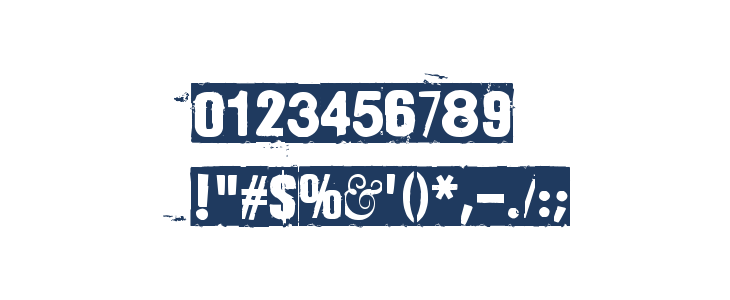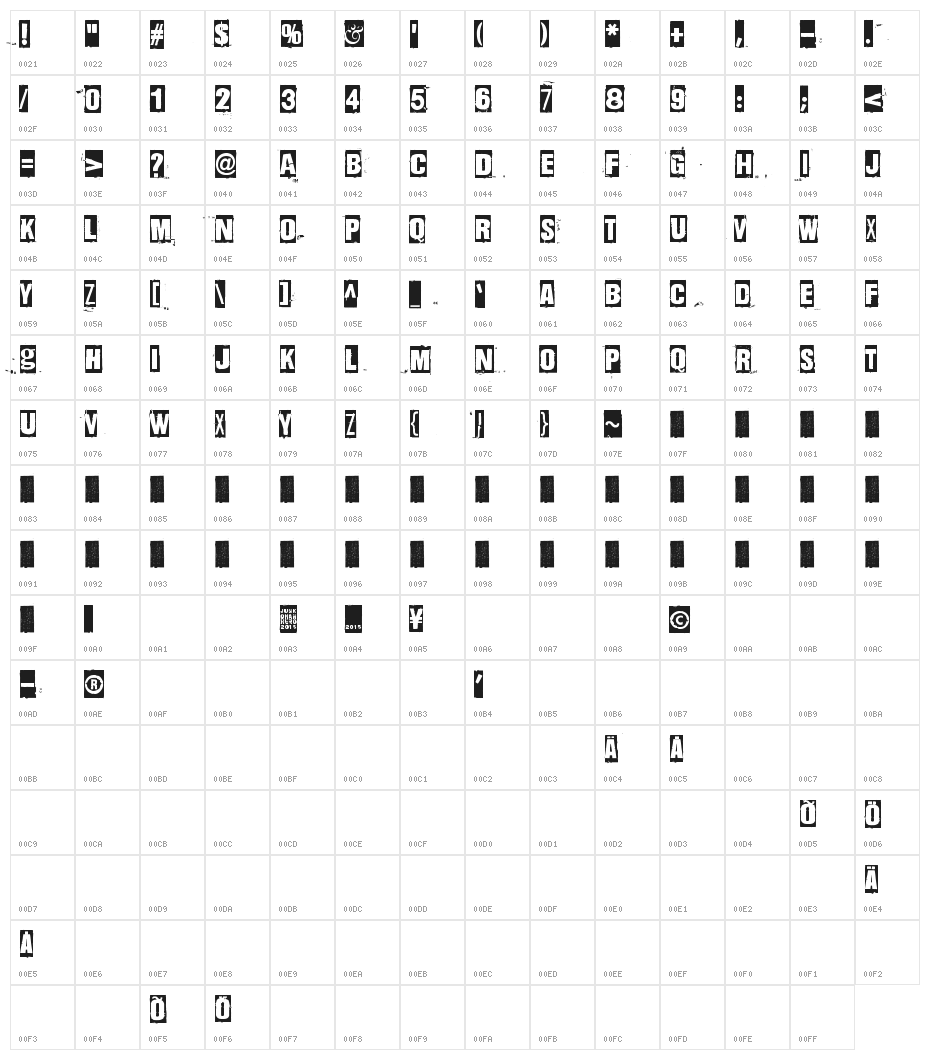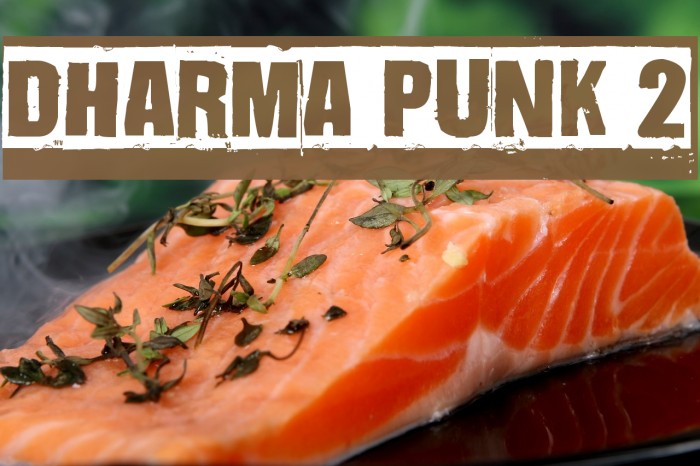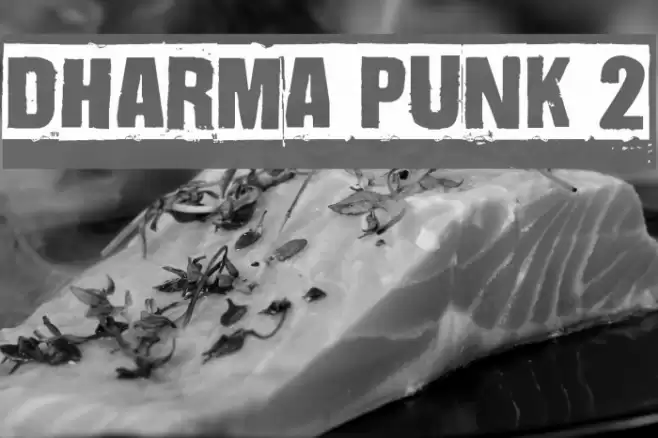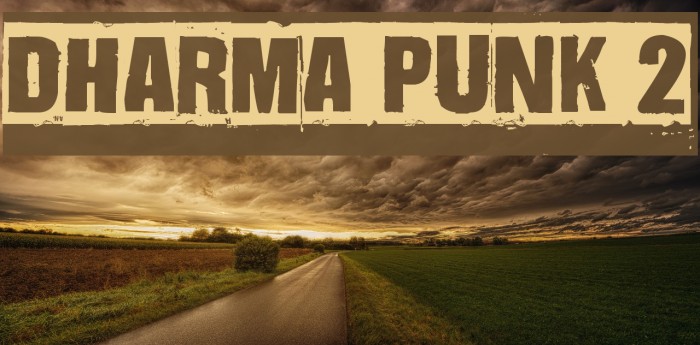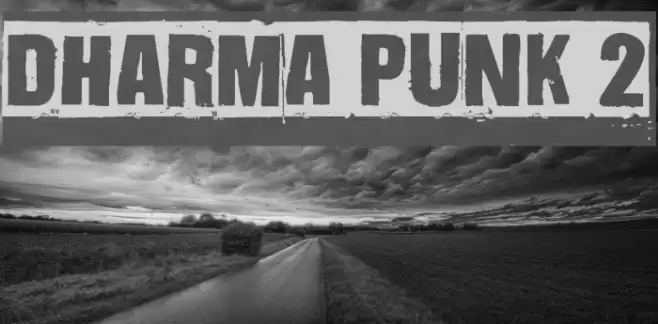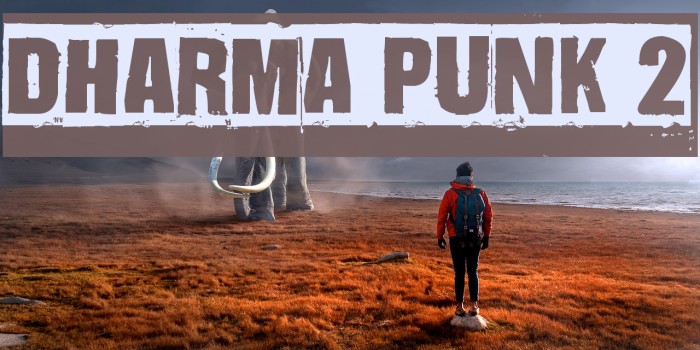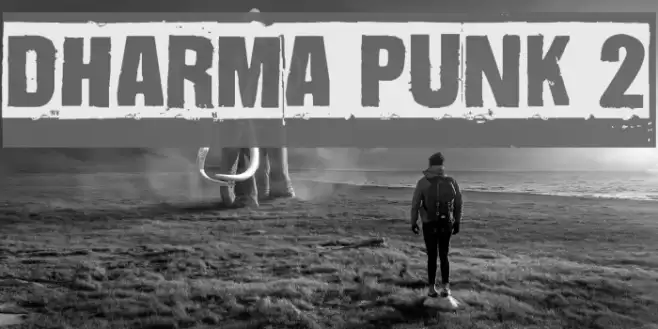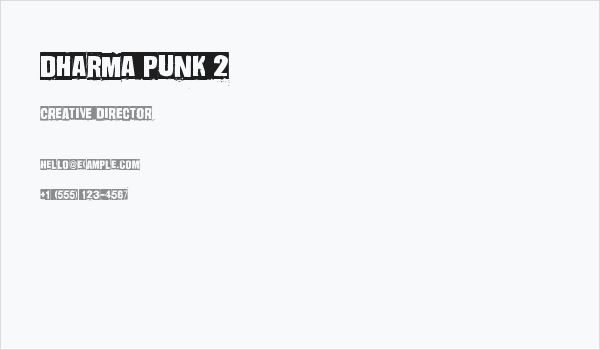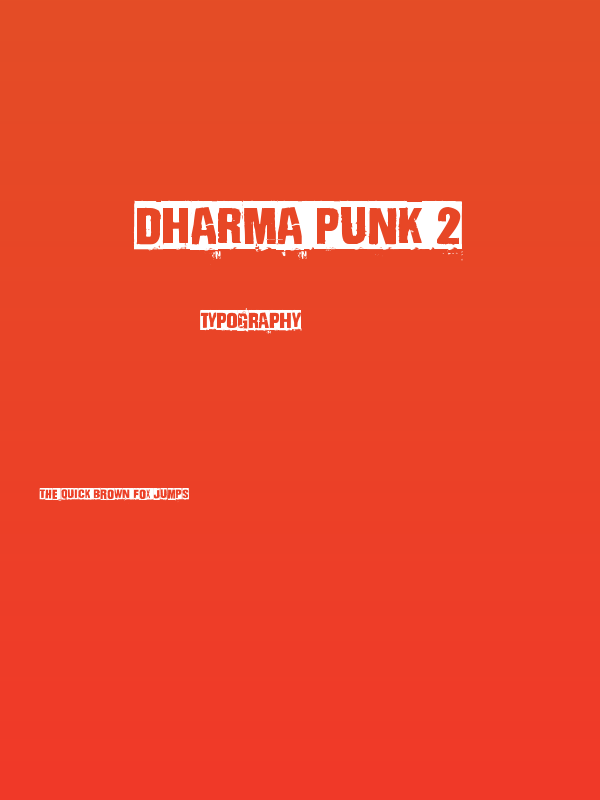
Dharma Punk 2 Font
Dharma Punk 2 Description
This font exudes a gritty, distressed aesthetic reminiscent of urban street art and punk rock culture. The characters are bold and blocky, with a rough, textured appearance that suggests a worn, weathered look. The uppercase letters are prominent and impactful, while the lowercase letters maintain the same rugged style. Numbers and special characters are equally bold, ensuring consistency across all glyphs. The font's design is perfect for projects that require a rebellious, edgy feel, such as music album covers, posters, or branding for alternative fashion labels.
| Overall Style | Grunge, Urban, Punk |
| Proposed Projects | Ideal for music album covers, edgy posters, streetwear branding, and rebellious-themed designs. |